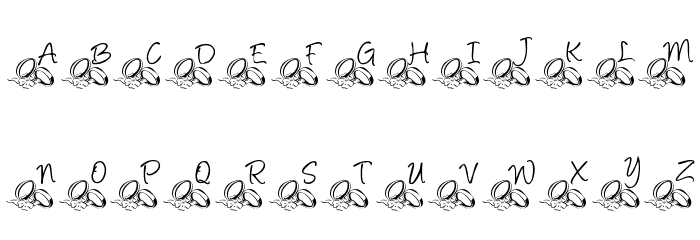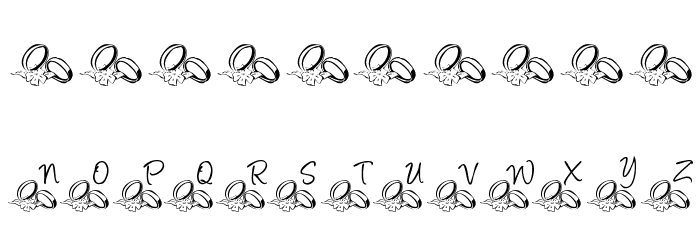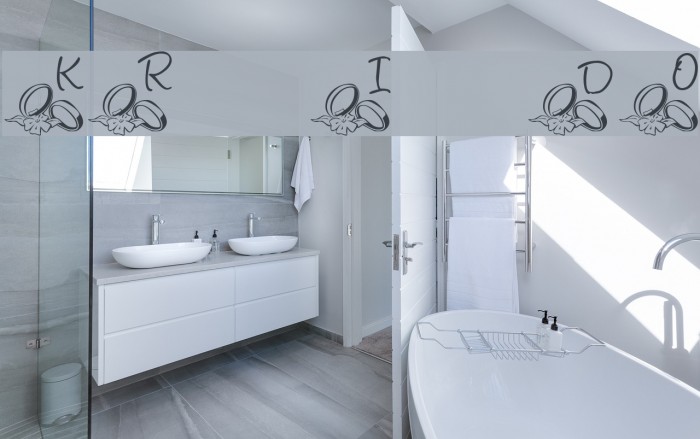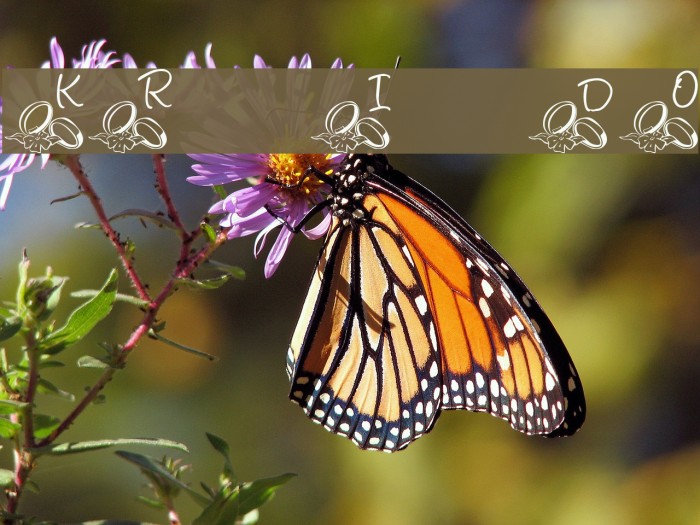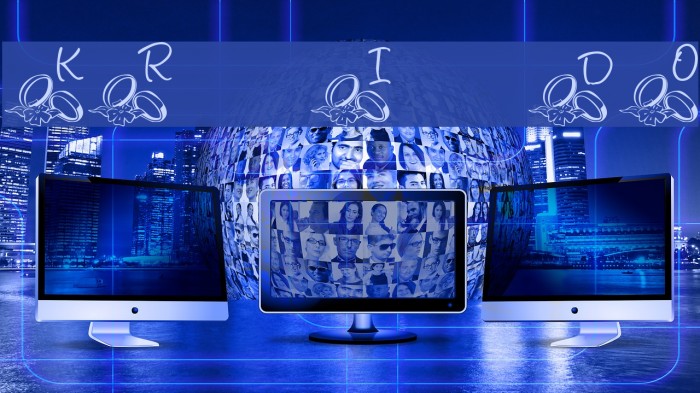
KR I Do! Font
This decorative font features a unique and elegant design where each character is adorned with an intricate illustration of wedding rings and flowers. The letters are crafted in a script style, providing a sense of romance and sophistication. The embellishments add a touch of whimsy, making it ideal for special occasions. The font maintains a consistent style across uppercase and lowercase letters, as well as numbers and special characters, ensuring a cohesive look. The overall appearance is both artistic and thematic, perfect for projects that require a personal and celebratory touch.
A decorative script font with wedding ring and flower embellishments.
- Proposed Projects: Ideal for wedding invitations, greeting cards, event announcements, and romantic-themed designs.
- Use Case: Headlines, Invitations, Decorative text